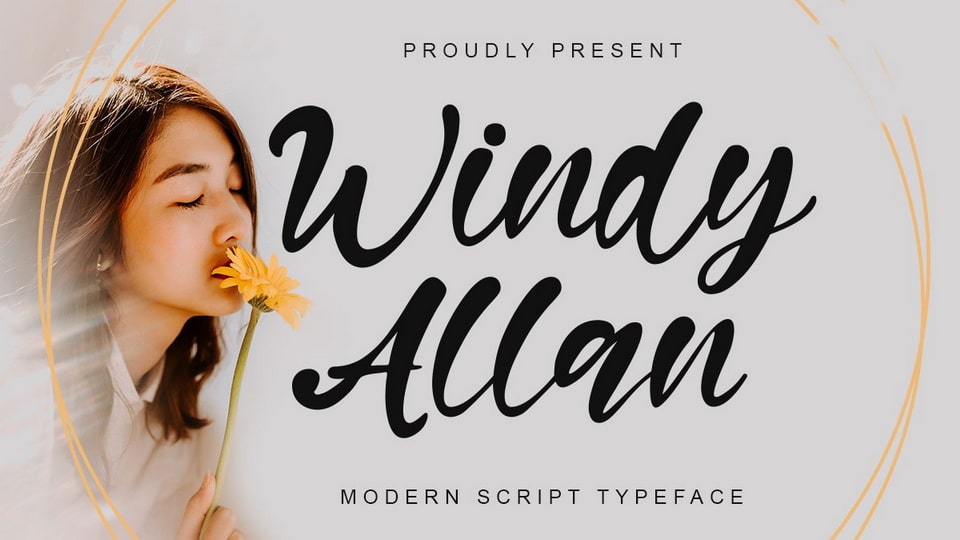
Download Windy Allan font, a trendy and authentic script typeface. Windy Allan is suitable for any branding project like logo, t-shirt printing, sporting design, and many more. It will look outstanding in a wide range of contexts.
Designer: Kong Font Studio